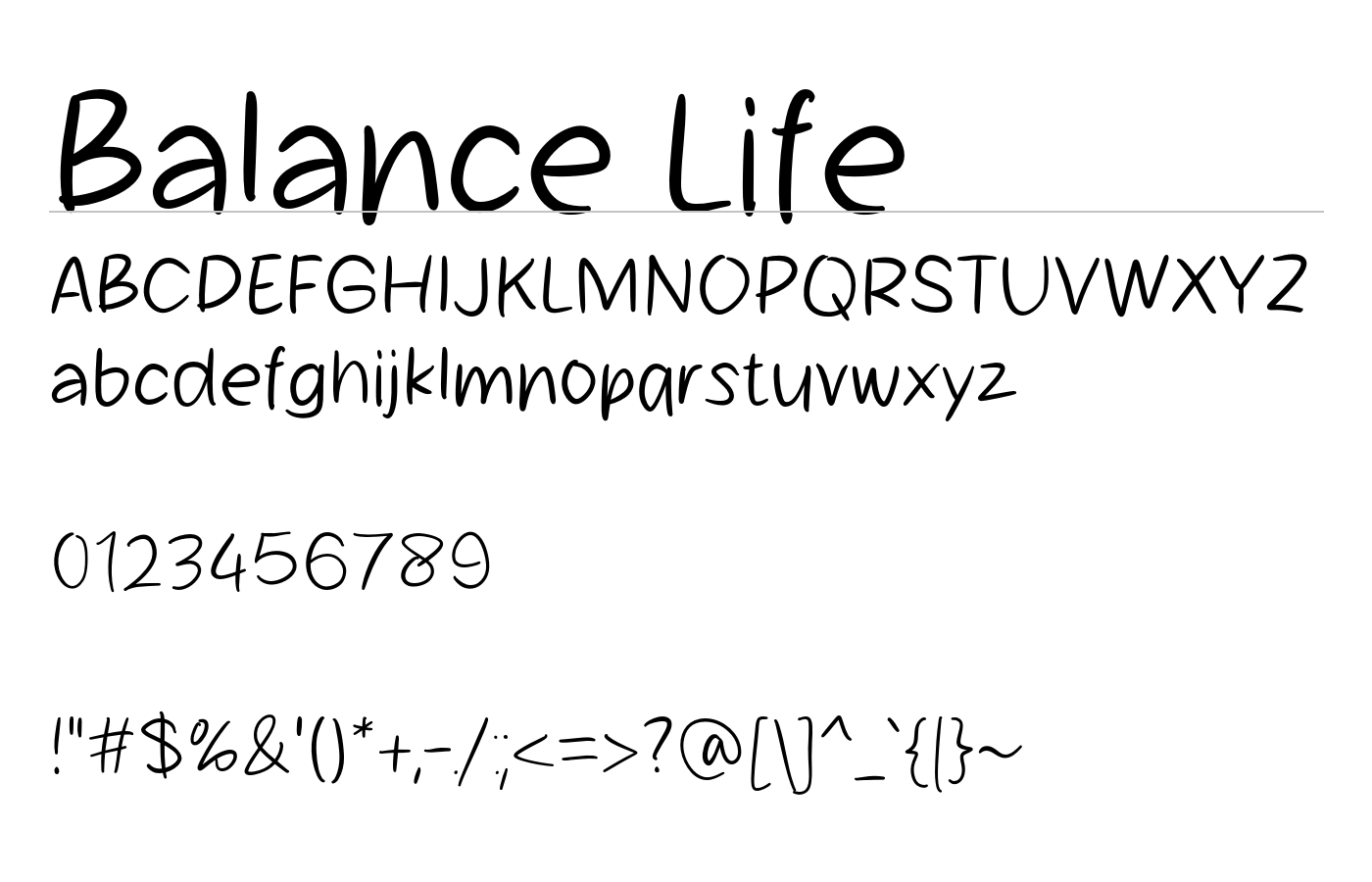
Balance Life is a casual, handwritten sans serif font with a friendly and approachable style. Its slightly irregular letterforms and moderate stroke contrast give it a lively, informal feel, making it perfect for personal projects, lifestyle branding, and playful headlines. This font works well where a warm, human touch is needed, such as in greeting cards, blogs, and creative packaging.
Balance Life Font
About Balance Life Font